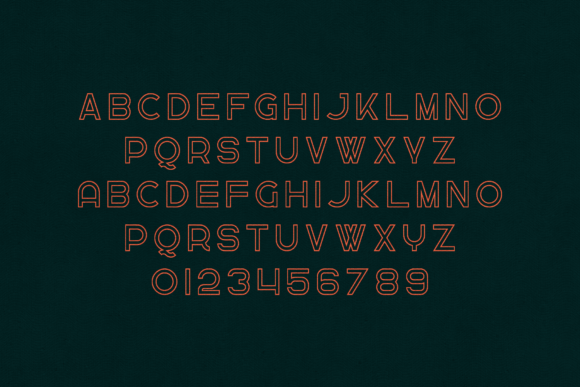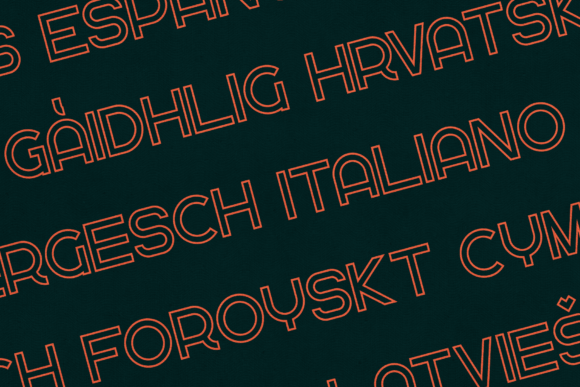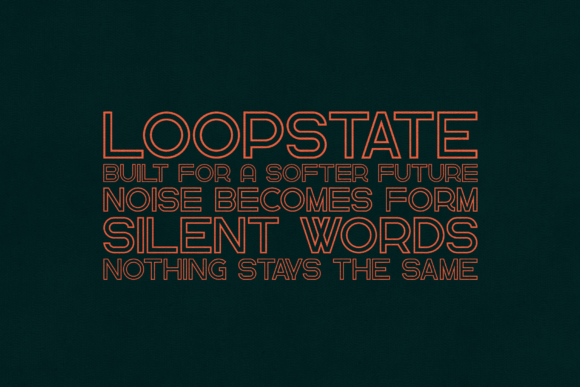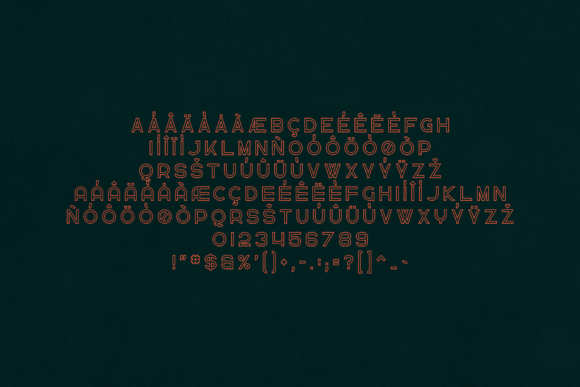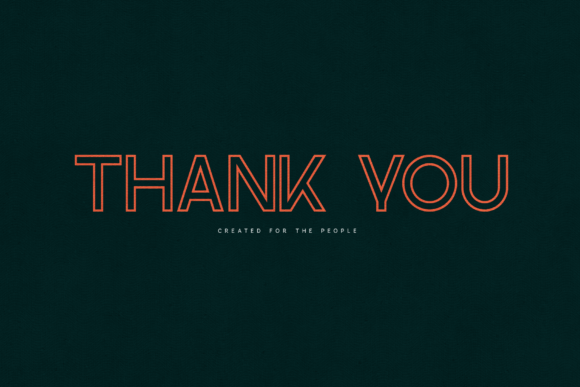
Introducing Greenth Outline Font: A Modern Geometric Display Sans
In the world of typography, a new font has emerged that is making waves with its unique blend of modernity and approachability. Meet Greenth Outline, a contemporary geometric display sans that is built on a clean monoline structure and distinctive double-stroke contour system. This font is designed to make a statement, and in this article, we’ll explore its features, benefits, and uses.
Design and Features
Greenth Outline is a carefully crafted font that boasts balanced proportions and softened interior corners. This combination creates a modern yet approachable voice that is perfect for bold headlines, identity systems, and graphic-forward design work. The font’s clean monoline structure provides a sense of simplicity and elegance, while the distinctive double-stroke contour system adds a touch of sophistication and uniqueness.
One of the standout features of Greenth Outline is its ability to stand out at large sizes. This makes it an ideal choice for posters, branding, and cultural projects that demand presence without aggression. The font’s geometric design ensures that it remains legible and visually appealing, even at large sizes.
Perfect for Modern Design Projects
Greenth Outline is a versatile font that can be used in a variety of design projects. Here are some of the areas where it excels:
- Modern branding: Greenth Outline is perfect for brands that want to convey a sense of modernity and sophistication. Its clean lines and geometric design make it an excellent choice for logos, business cards, and other branding materials.
- Eco & lifestyle brands: The font’s eco-friendly vibe and modern aesthetic make it an excellent choice for eco-conscious brands and lifestyle companies.
- Posters & campaigns: Greenth Outline is designed to make a statement, making it perfect for posters, campaigns, and other large-format designs.
- Streetwear design: The font’s bold and geometric design make it an excellent choice for streetwear brands and designers.
- Creative studios: Greenth Outline is a great choice for creative studios and design agencies that want to add a touch of modernity to their branding and marketing materials.
- Packaging systems: The font’s clean lines and geometric design make it an excellent choice for packaging systems that require a modern and sophisticated look.
- Digital graphics: Greenth Outline can be used in a variety of digital graphics, including social media graphics, website headers, and more.
Benefits of Using Greenth Outline
So, why should you choose Greenth Outline for your design projects? Here are some benefits of using this font:
- Unique and distinctive: Greenth Outline’s double-stroke contour system and geometric design make it a unique and distinctive font that will help your designs stand out.
- Modern and approachable: The font’s clean lines and softened interior corners create a modern yet approachable voice that is perfect for brands that want to convey a sense of sophistication and friendliness.
- Versatile: Greenth Outline can be used in a variety of design projects, from posters and branding to digital graphics and packaging systems.
- Legible: The font’s geometric design and clean lines ensure that it remains legible, even at large sizes.
Greenth Outline is a modern geometric display sans that is making waves in the world of typography. Its unique blend of modernity and approachability makes it an excellent choice for designers and crafters who want to add a touch of sophistication to their designs. With its versatility, legibility, and distinctive design, Greenth Outline is perfect for a wide range of design projects, from modern branding and eco-friendly designs to posters, streetwear, and digital graphics.
Whether you’re a designer, crafter, or simply someone who appreciates great typography, Greenth Outline is definitely worth checking out. Its unique features and benefits make it an excellent addition to any design project, and its versatility ensures that it can be used in a wide range of applications.